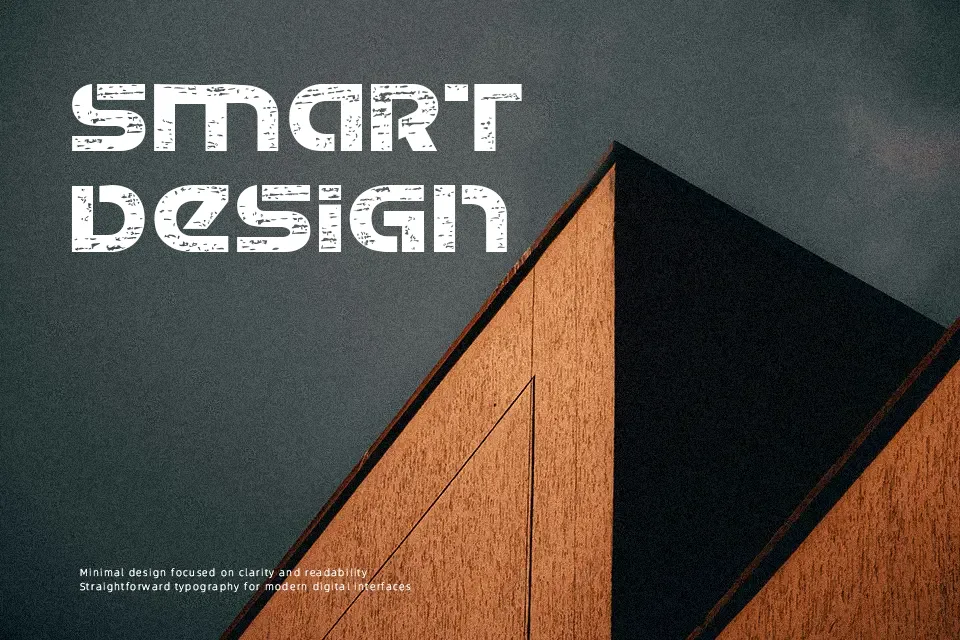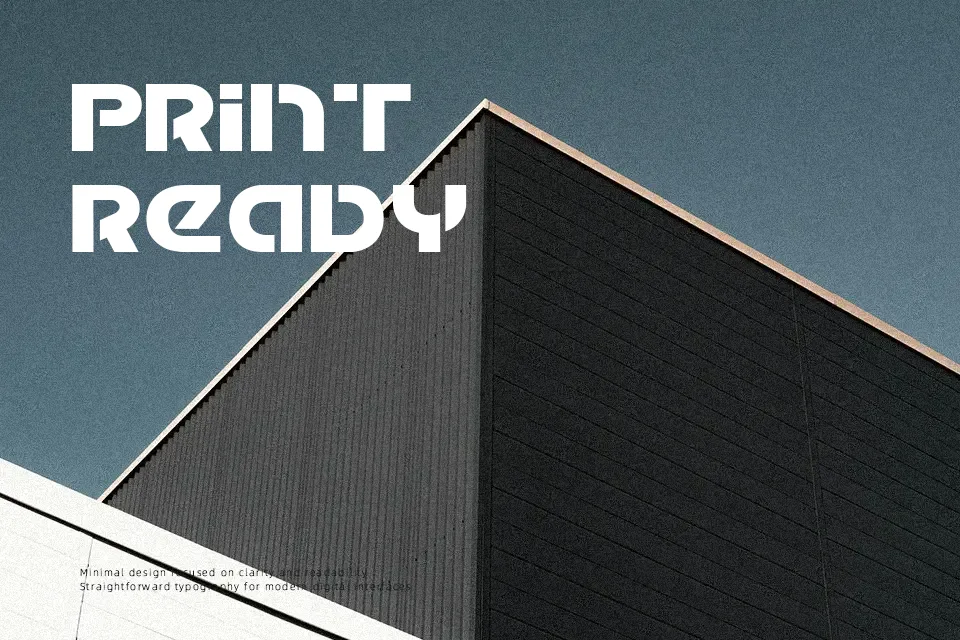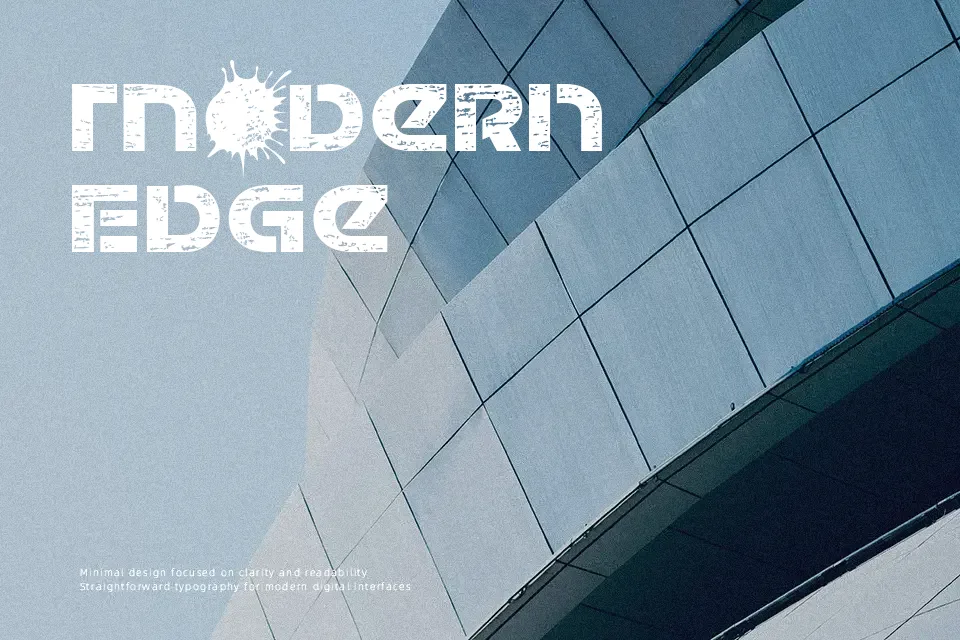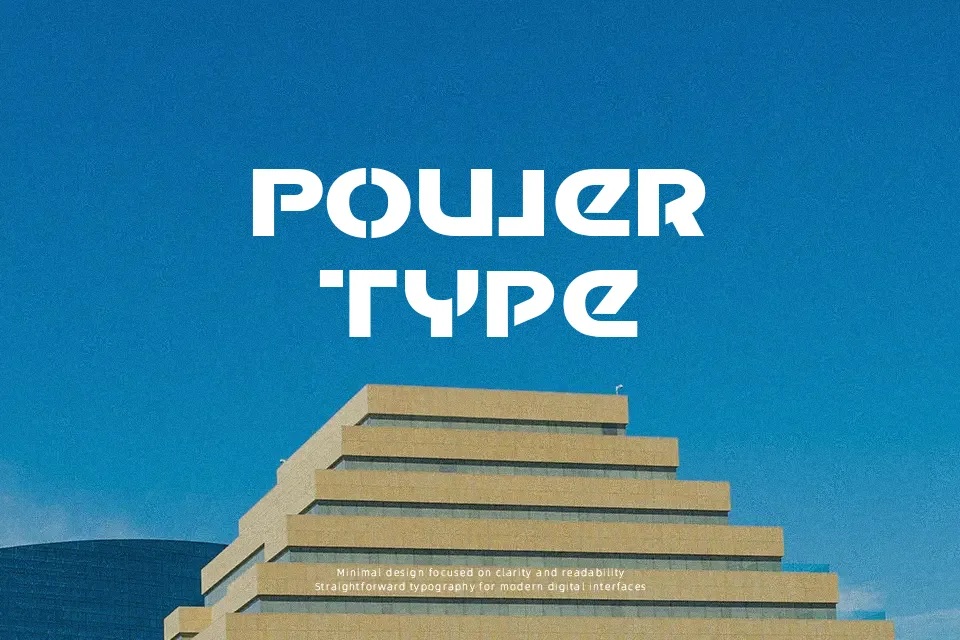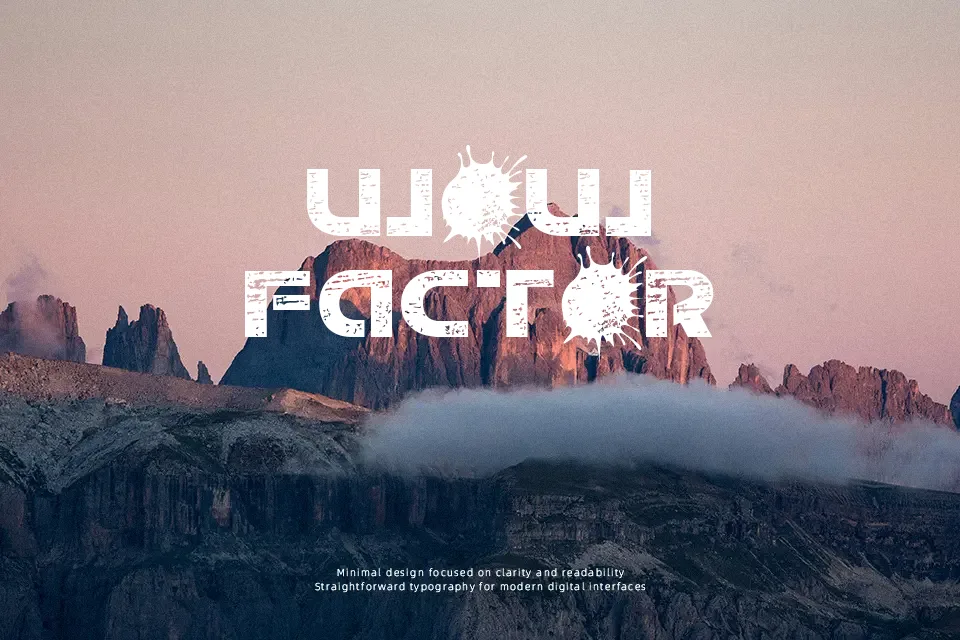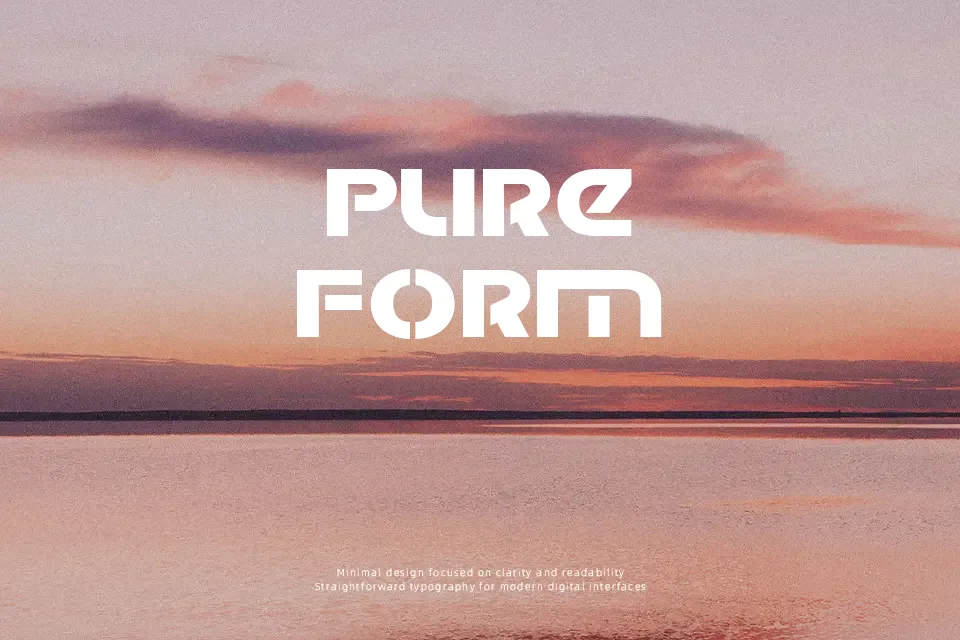
Urban Tribe Font
Designed by Jonathan Swinn
Urban Tribe Font introduces an assertive display aesthetic defined by thick geometric strokes punctuated with sharp stencil cutouts. The uppercase letterforms carry uniform vertical proportions, while deliberate breaks across stems and counters create an industrial rhythm. Tight letter spacing reinforces the heavy visual weight, ensuring immediate impact across large-scale signage and apparel prints. However, the dense anatomy and recurring stencil fractures reduce stroke continuity, making the design tiring to navigate in extended paragraphs. The letterforms hold up exceptionally well across oversized headline applications where strong structural definition is essential, though small display sizes quickly lose definition in the narrow stencil apertures.
Best For: streetwear apparel graphics, music festival posters, action sports branding, packaging headline labels
Not Ideal For: long body text, dense editorial layouts, small interface captions, formal corporate documents
Perfect for branding, headline, and packaging, with a bold and display style.